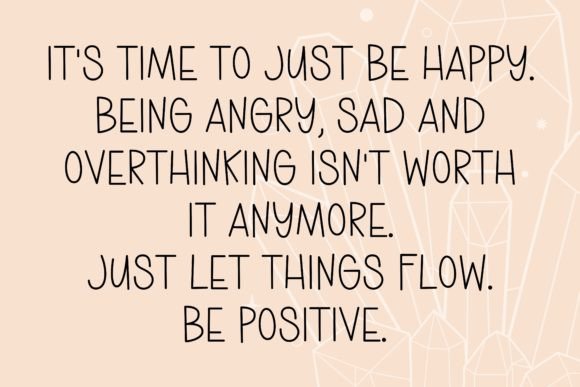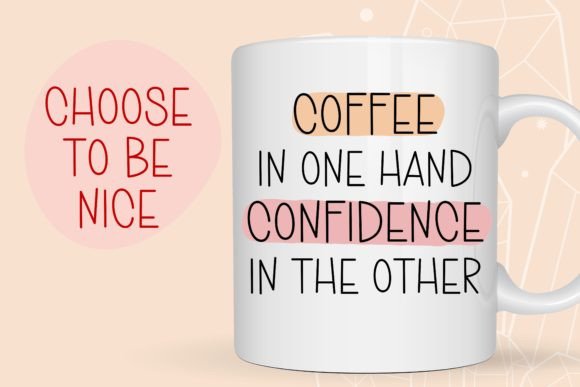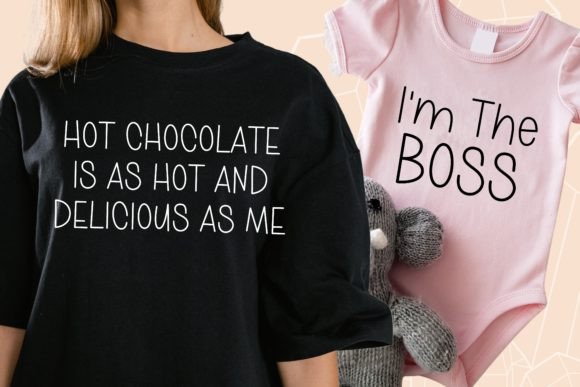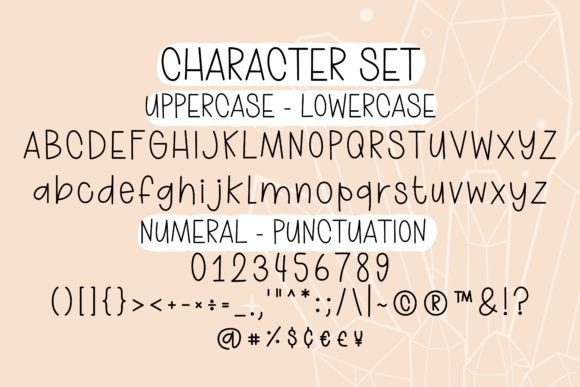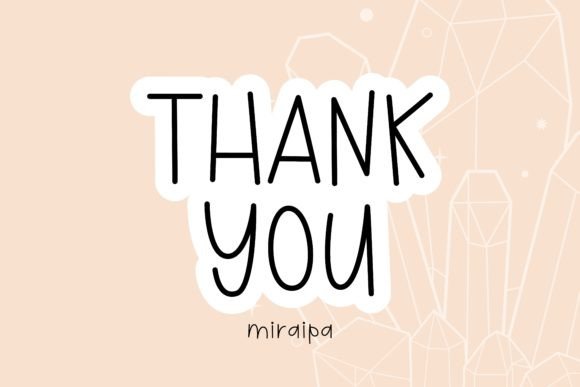
Discover the Charm of Gemstone Font: A Playful and Friendly Addition to Your Design Library
I’ll never forget the time I was working on a whimsical Easter-themed project for a client, and I just couldn’t find the right font to bring it all together. The design needed something playful, friendly, and eye-catching. That’s when I stumbled upon Gemstone Font, a beautiful handwritten sans serif font that instantly elevated my project to the next level. If you’re a designer, crafter, or creative hobbyist looking for a font that can add a touch of warmth and personality to your work, you’re in the right place!
A Personal Review of Gemstone Font
- ✨ Playful and friendly vibe that’s perfect for creative projects
- 💕 Beautifully crafted to add a touch of elegance to any design
- 👍 Versatile and suitable for a wide range of applications, from Easter and back to school themes to wedding and party decorations
While Gemstone Font is an excellent addition to any design library, there are a few minor things to keep in mind:
- 🤔 Some characters may not be suitable for body text, as they’re designed to be more decorative
- ⚠️ Limited availability of certain language scripts or special characters
The Story Behind Gemstone Font
Gemstone Font was designed with the intention of creating a friendly and approachable font that would bring joy to creative projects. The designer aimed to craft a font that would be both elegant and playful, making it suitable for a wide range of applications.
| Font Name | Gemstone Font |
| Author | miraipa |
| What type of projects is Gemstone Font best suited for? | Gemstone Font is perfect for creative projects, such as Easter, back to school, wedding, party decorations, invitations, Fall, Halloween, Christmas, posters, blogs, clothing, child-related designs, greeting cards, social media posts, and more! |
| Is Gemstone Font suitable for body text? | While Gemstone Font is highly legible, it’s primarily designed for display text or headings. For body text, you may want to consider a more traditional font. |